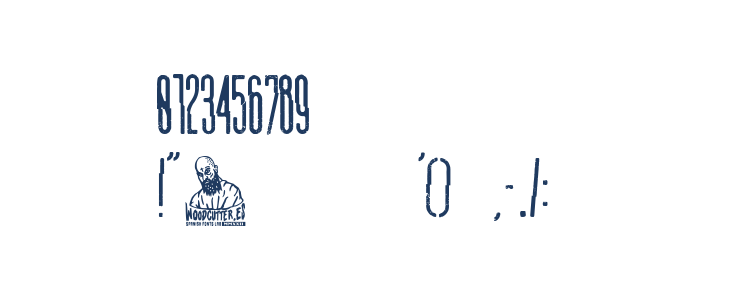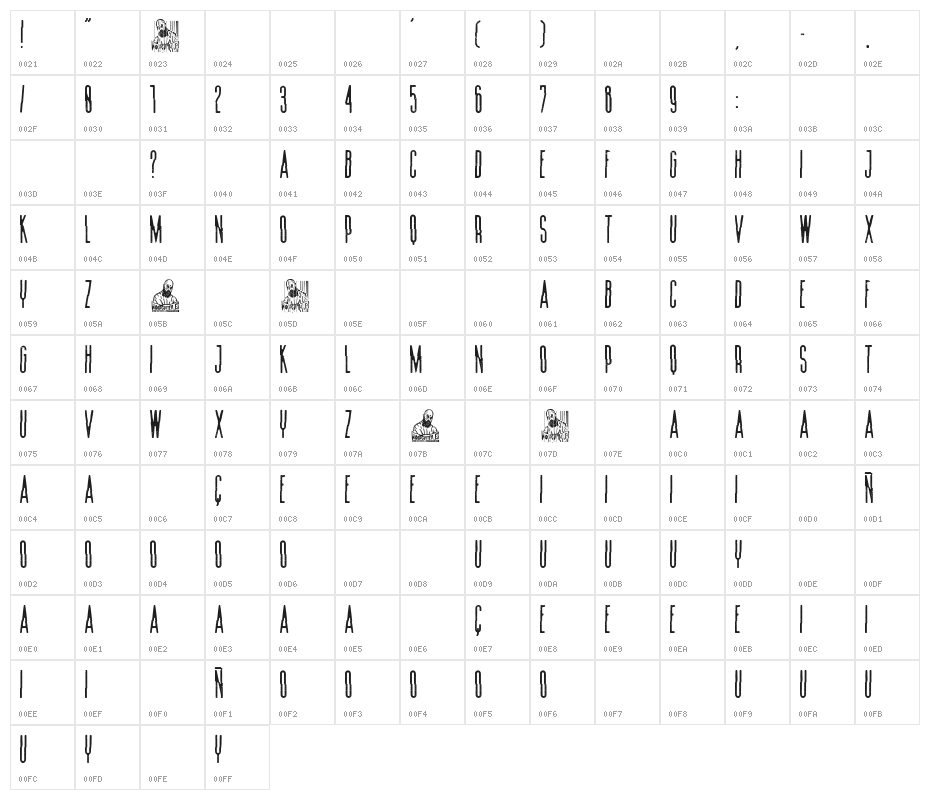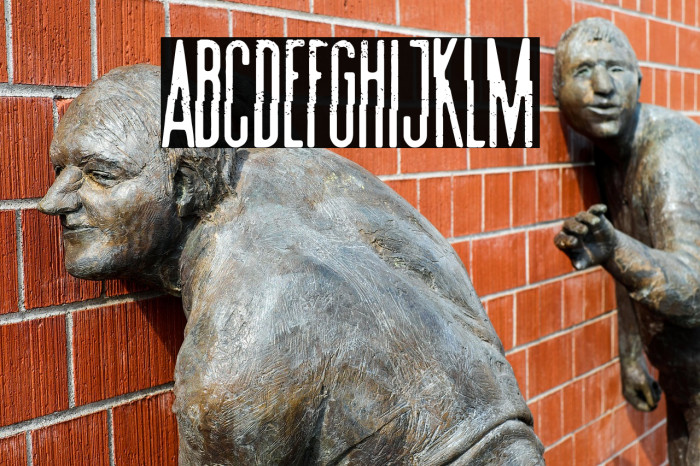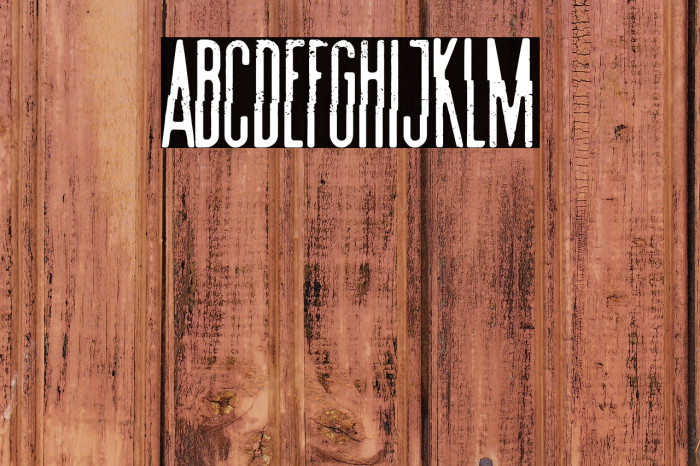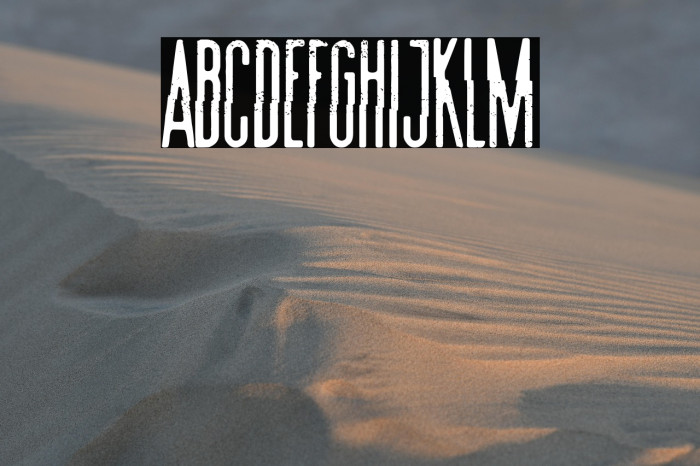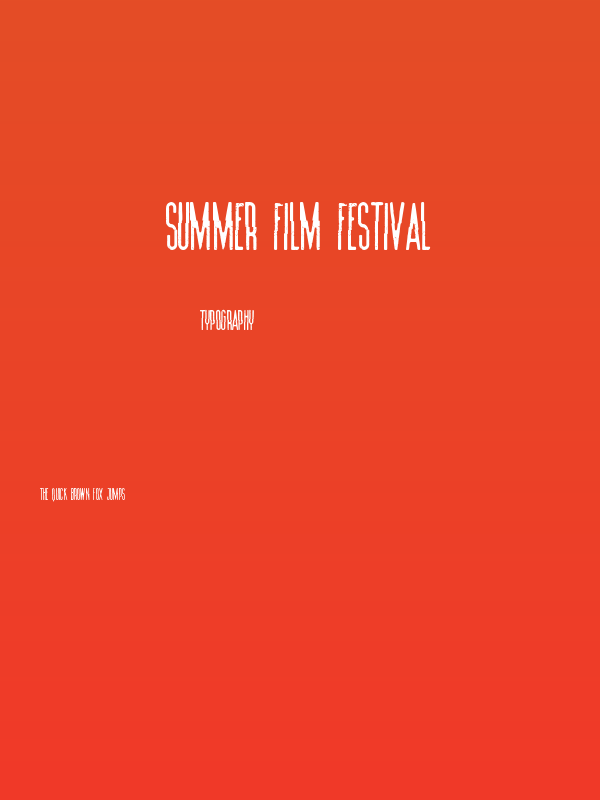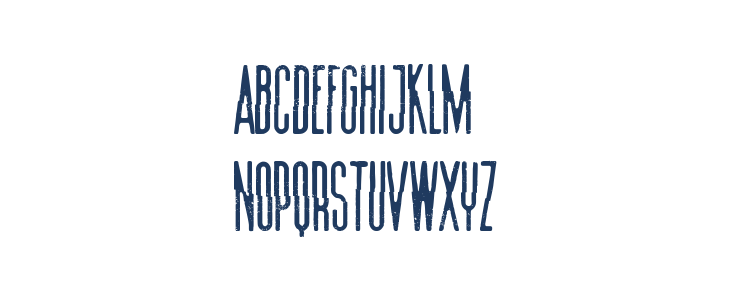
Summer Film Festival Font
Summer Film Festival Description
This font features a distressed, textured appearance, giving it a vintage and worn look. The tall, narrow letters are reminiscent of old film posters, with a slightly irregular edge that adds to its retro charm. The uppercase and lowercase letters maintain a consistent height, while the numbers are similarly styled to match the overall aesthetic. The special characters are designed to complement the alphabet, maintaining the same distressed texture. This font is ideal for projects that require a nostalgic or gritty feel, such as movie posters, album covers, or themed event promotions.
| Proposed Projects | Ideal for movie posters, album covers, themed event promotions, and retro branding. |